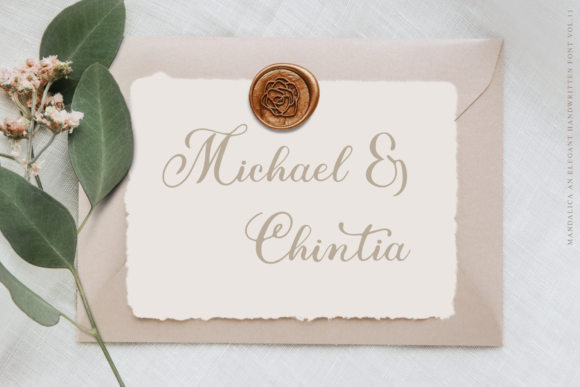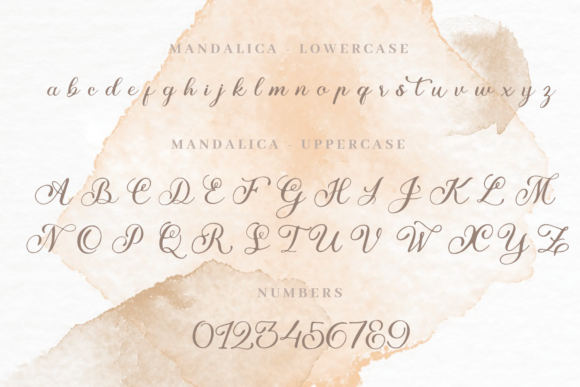
Mandalica Script Font
About Mandalica Script Font
Mandalica Script is a delicate calligraphy typeface. It will add a luxury spark to any design project that you wish to create! This font is PUA encoded which means you can access all of the amazing glyphs and ligatures with ease!